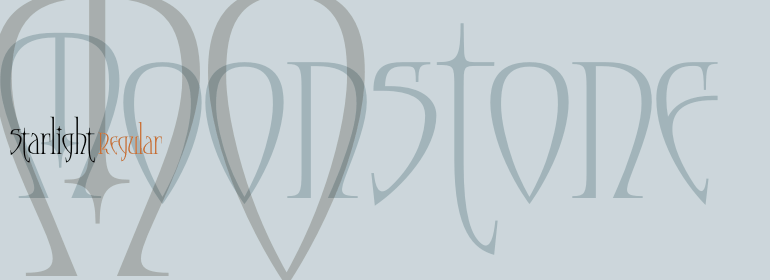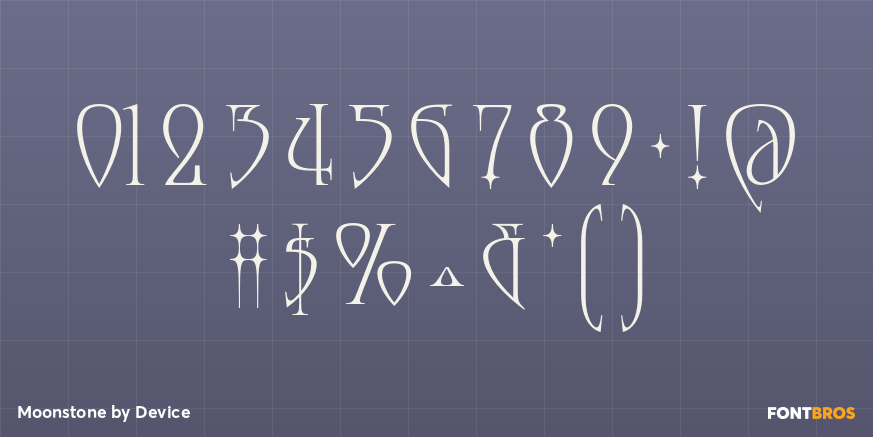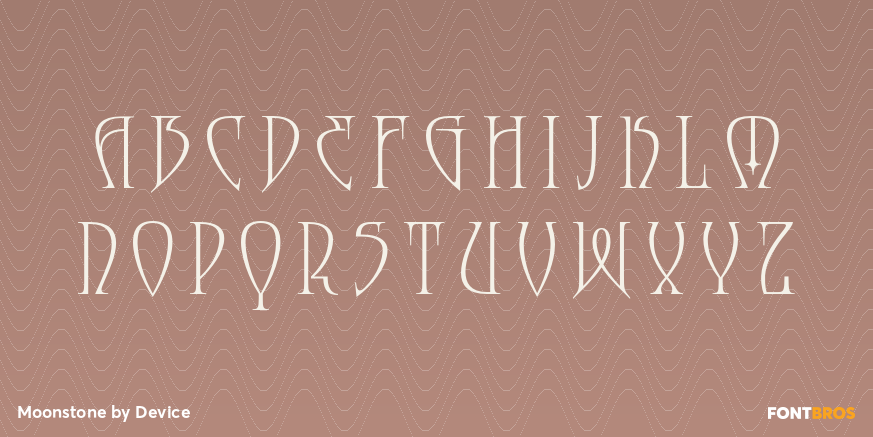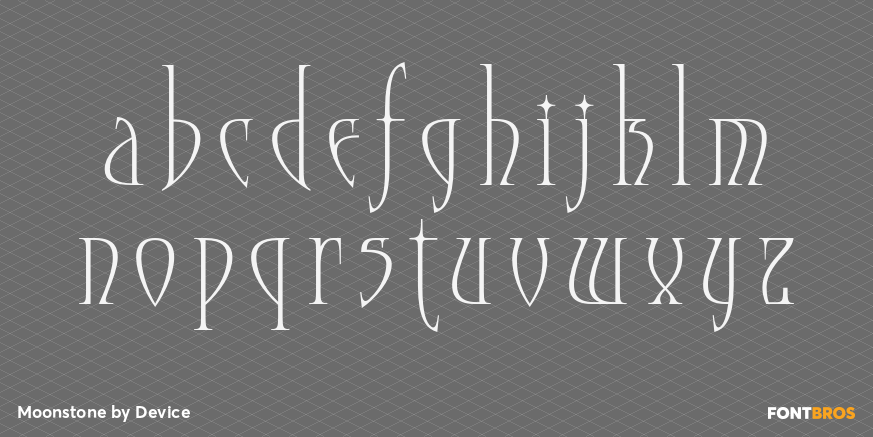
Moonstone
Font Family by Device
Moonstone is for all those misunderstood goth Buffy fans. This font contains alternative versions that enable customisation of headlines and are intended to be freely mixed in one setting.